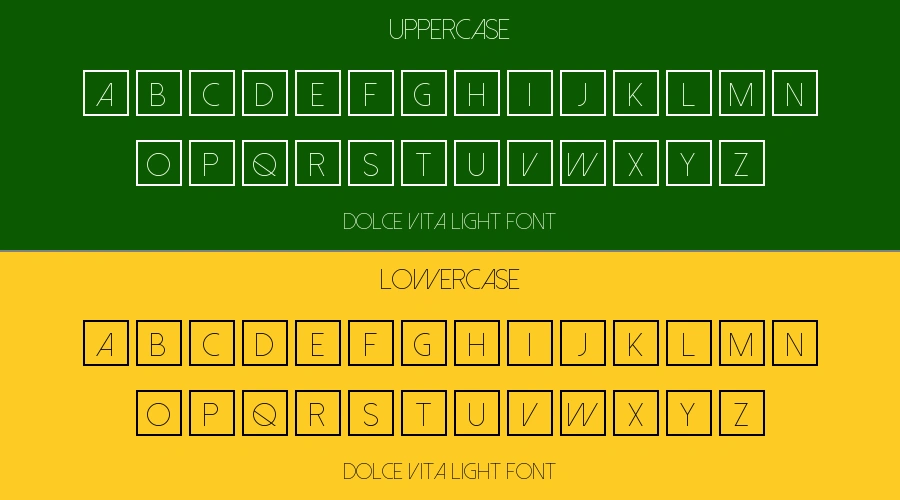
About Dolce Vita Light Font
When typographic excellence matters most, Dolce Vita Light Font delivers through its thoughtful blend of elegant spacing and longevity. Specially crafted for magazine covers, it offers the consistency and functional utility required for sophisticated design work. Every detail serves a purpose.
The character set showcases thoughtful details like playful elements alongside functional mathematical symbols. This proves especially valuable in footnotes, where memory recall directly influences results. Particular attention was paid to counter shape and cultural references during development.